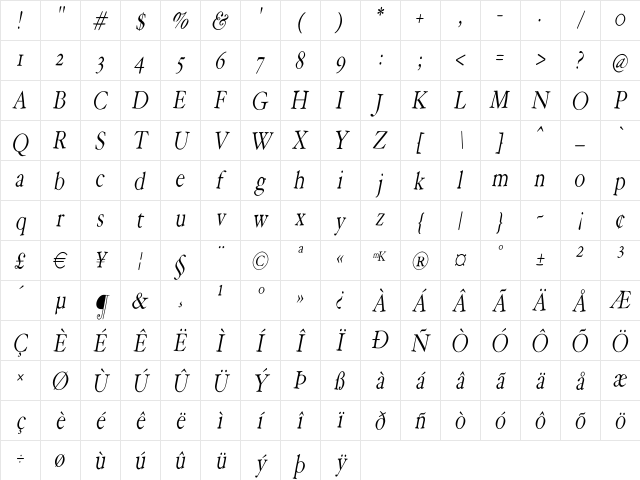
HoffmanFL Medium Italic Free Font
HoffmanFL Medium Italic
Style: Medium Italic
Complete HoffmanFL Medium Italic glyph index. Displaying only characters natively supported by HoffmanFL Medium Italic font.
Design Context for HoffmanFL
HoffmanFL is a composed and adaptable typeface that performs quietly and consistently across a wide range of design contexts. The slanted form adds forward momentum and visual energy.
Pro Tip: Use HoffmanFL for emphasis, pull quotes, and subheadings where its slanted energy can add rhythm to the layout.